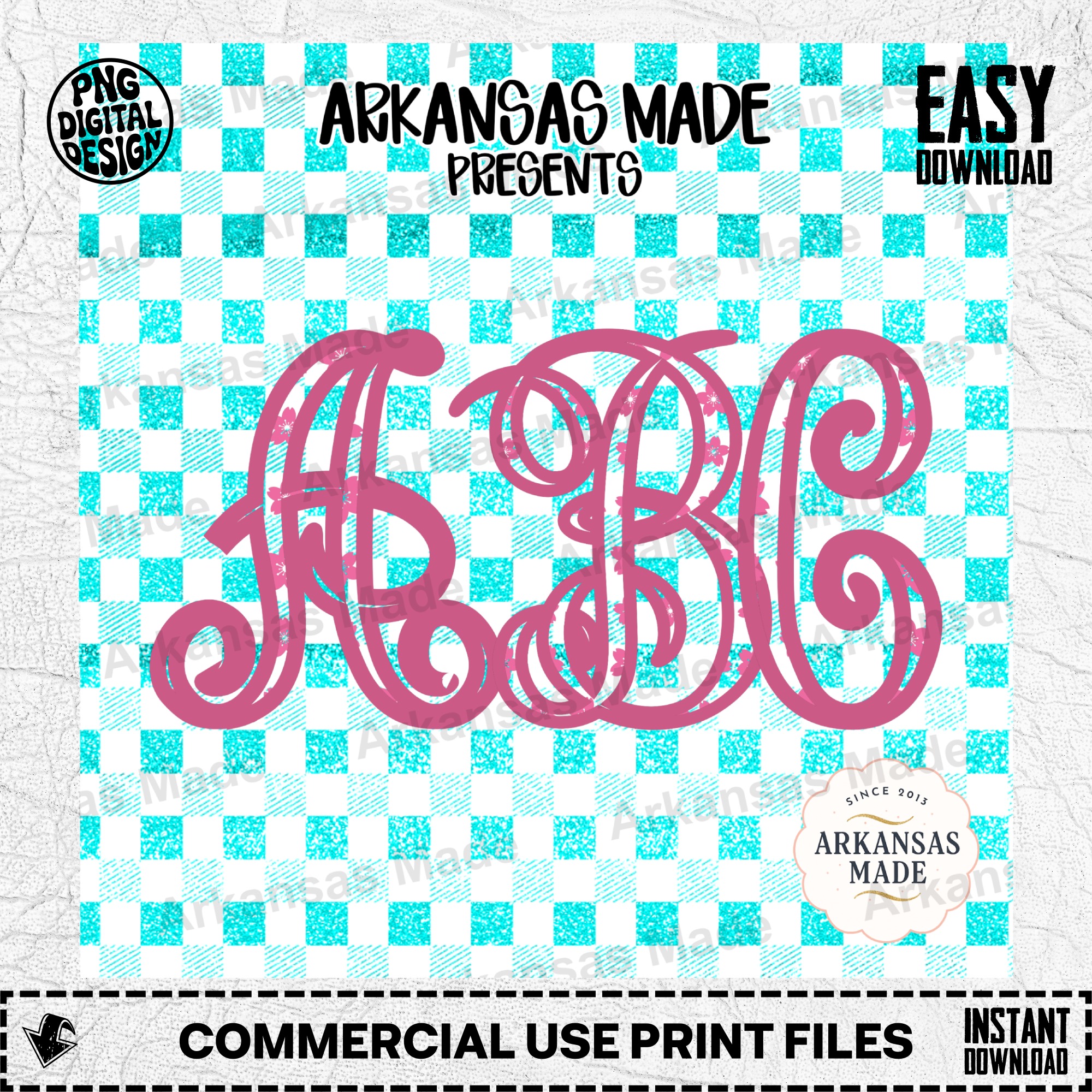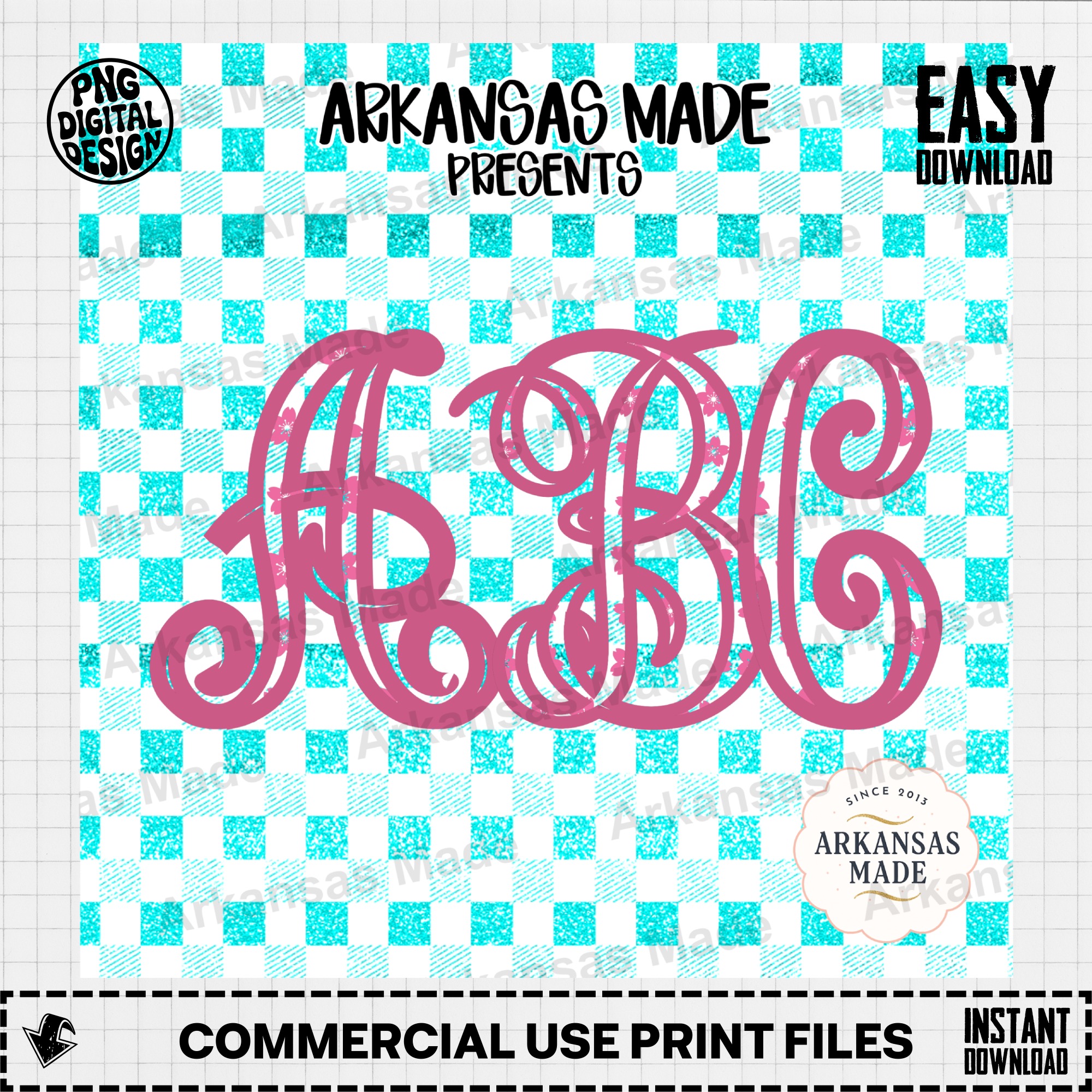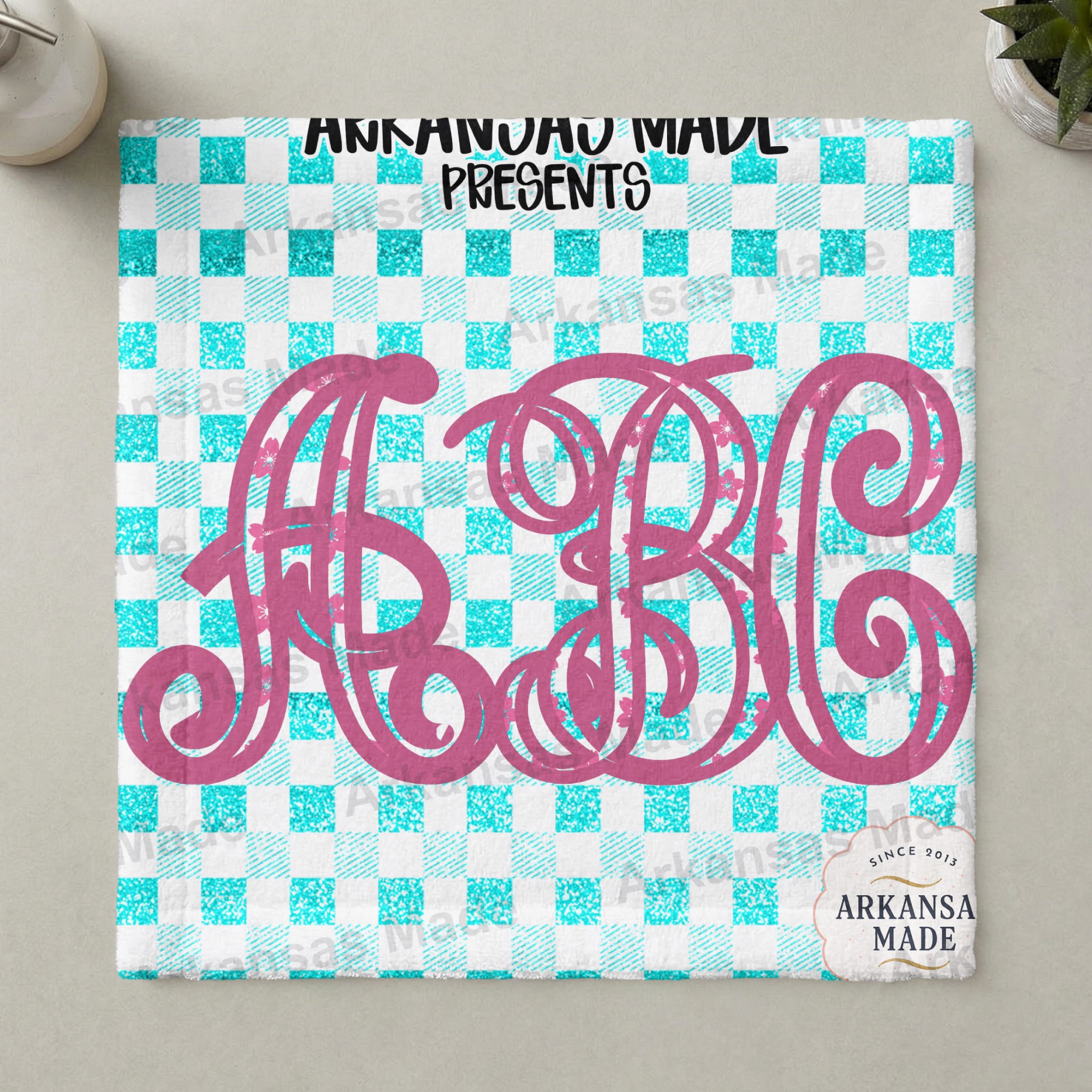
Pink Cherry Blossom Monogram SVG PNG Font Letters, Faux Glitter Teal Gingham Alpha Set, Personalized Digital Download
Transform your creations with this charming Pink Cherry Blossom Monogram Digital Download Alpha Set, featuring faux glitter teal gingham letters perfect for personalized projects. Embrace a sweet, preppy vibe with these delicate floral letters, ideal for crafters and DIY enthusiasts. Perfect for adding a touch of Southern charm to custom apparel, nursery decor, or unique gifts for birthdays, bridesmaids, or sorority sisters.